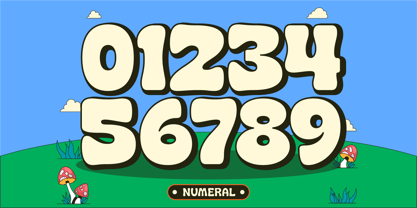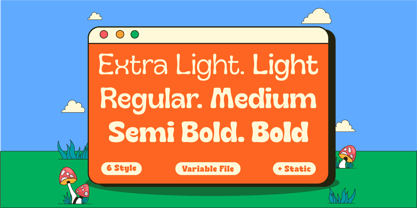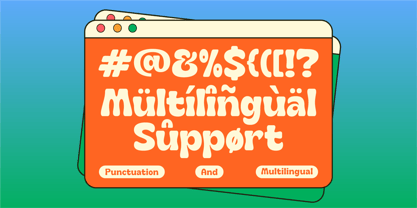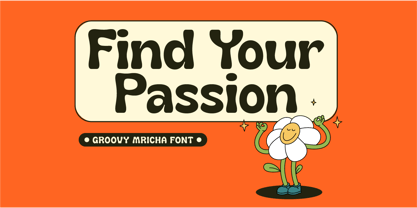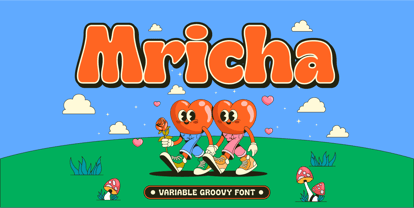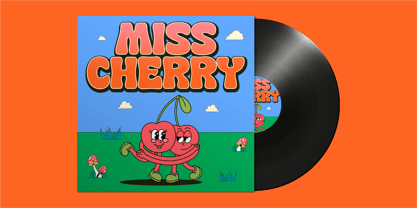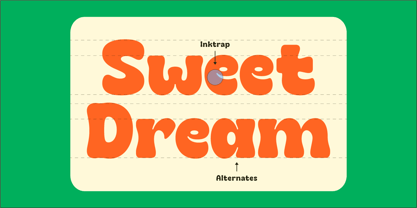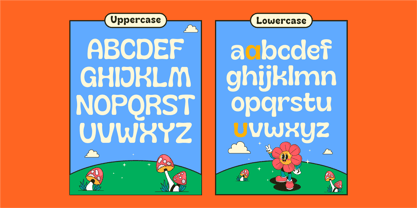
Groovy Mricha
by Groovy Font
The Groovy Mricha Font Family was designed by Ahmad Ginanjar Riyadi and published by Groovy Font. Groovy Mricha contains 6 styles and family package options. More about this family
Groovy Mricha font is a unique Variable Groovy Font that comes in 6 different weights, ranging from Extra Light to Bold.
Carefully crafted, this font combines the retro style of 90s cartoons and comics with a modern twist. With added ink traps, Groovy Mricha font has a distinctive and visually appealing look.
The Groovy Mricha font is ideal for:
- Vintage or modern designs
- Funky logo designs
- Branding for products looking to showcase a creative and unique character
- Headlines in publications or graphic designs
With the ability to adapt to various weights and styles, this font can easily be combined with graphic elements to create engaging and memorable designs.
- Uppercase, Lowercase, Numeral, Punctuation & Multilingual.